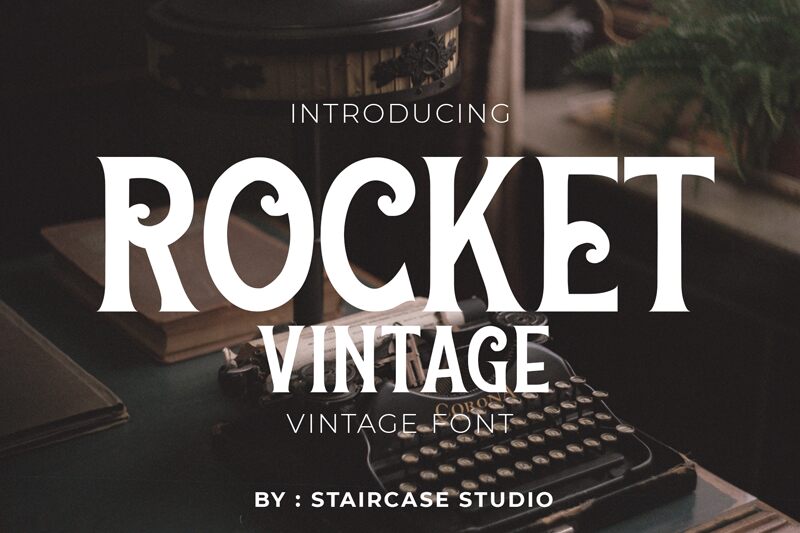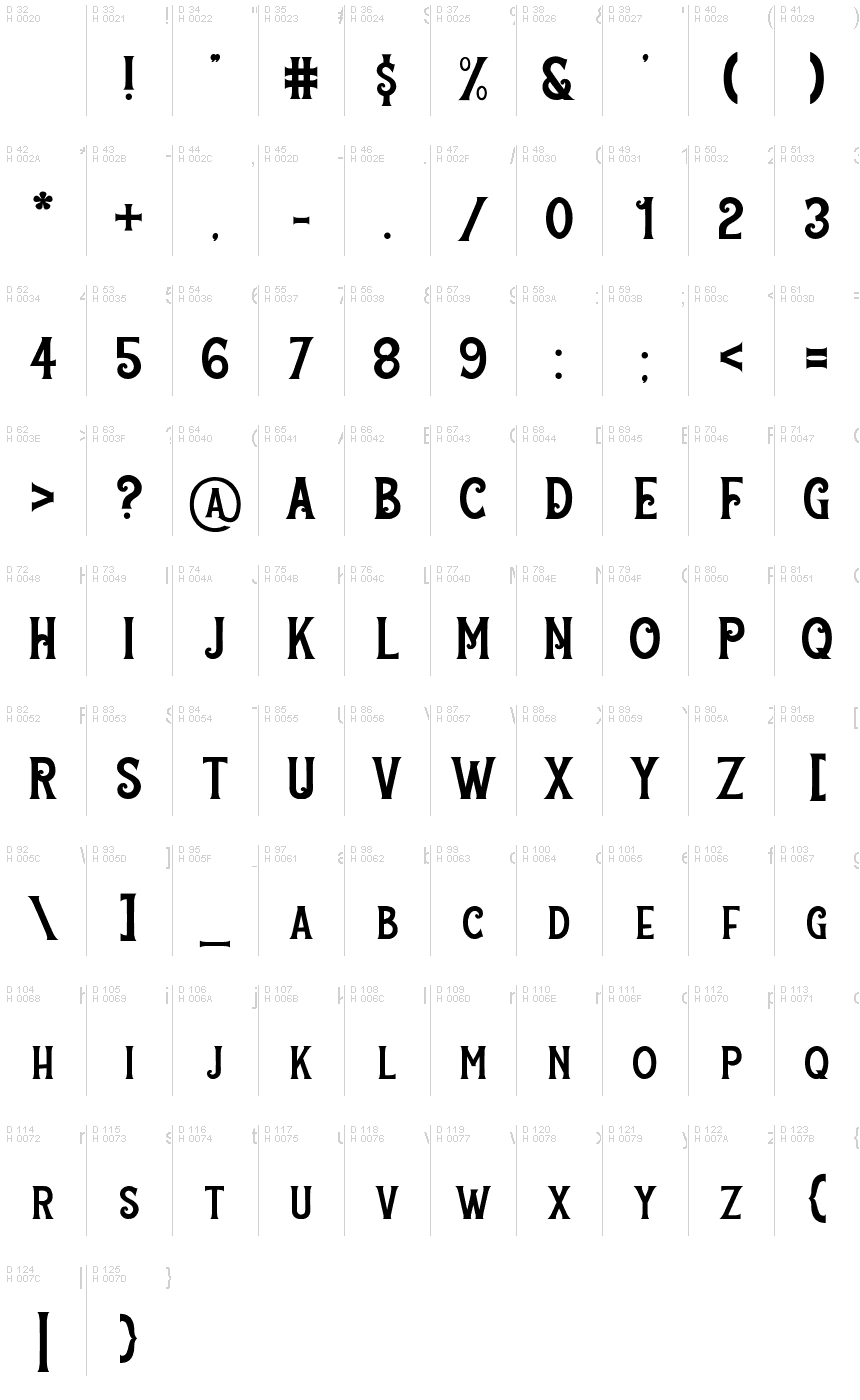
Rocket-Vintage
Rocket Vintage, by Staircase Studio, is a striking display font with a vintage flair. Its bold and dramatic style is perfect for projects that require a touch of nostalgia and charm. The semi-bold font typeface makes it versatile for use in both print and digital media, while its unique width adds character to any design. From retro logos to old-fashioned book covers, Rocket Vintage will transport any project back in time. Bring your designs to life with this captivating font that exudes personality and evokes emotions of days gone by.